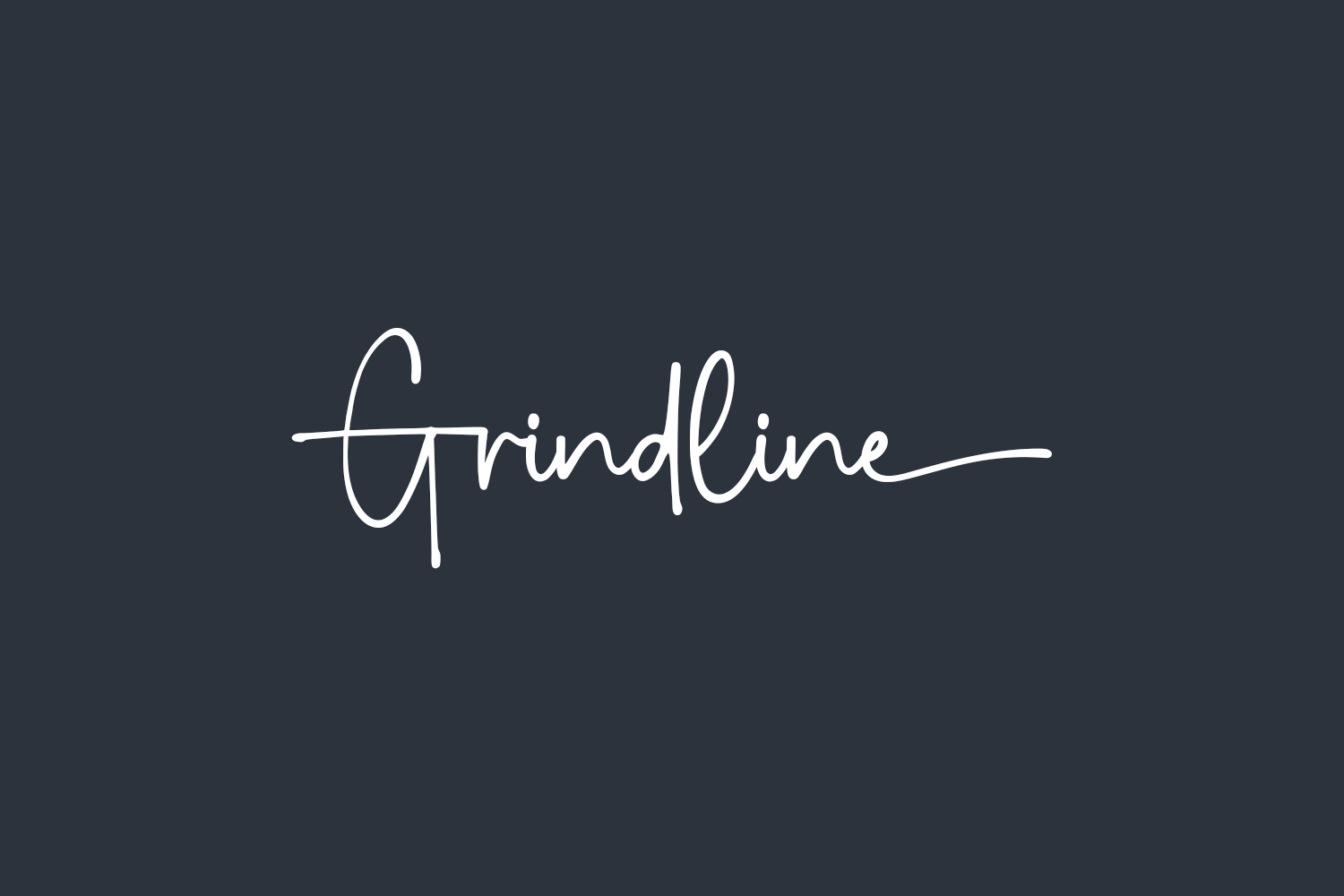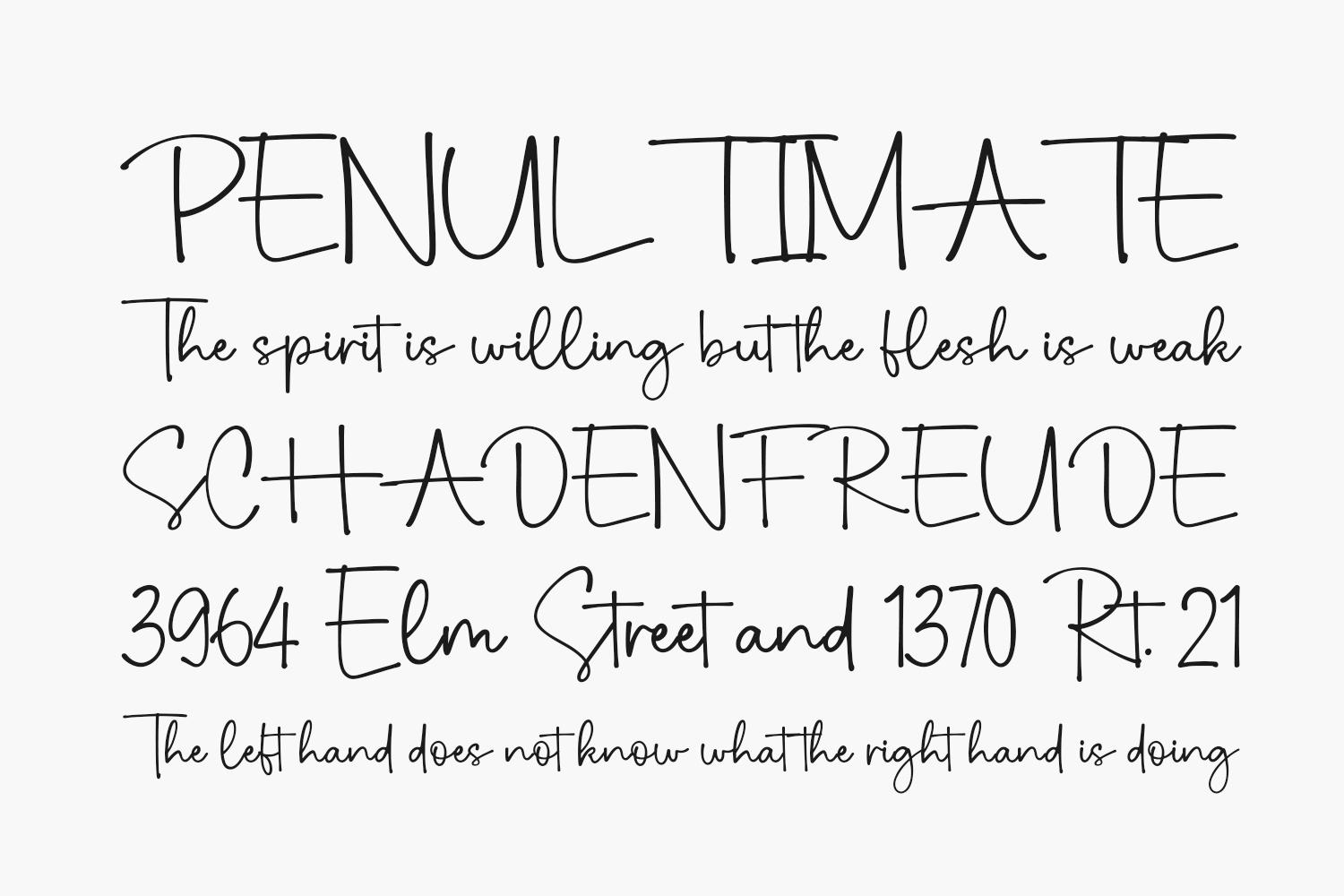
Grindline Free Font is a lovely script font featuring charming, playful characters that seem to dance along the baseline. Add this font to your most creative ideas, and notice how it makes them stand out. Grindline Free Font was designed by Allouse Studio and is free for personal use only. Please purchase the full version for commercial use.
Designed by Allouse Studio